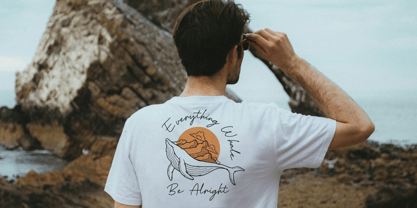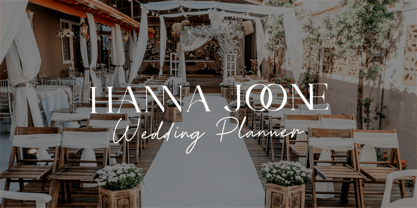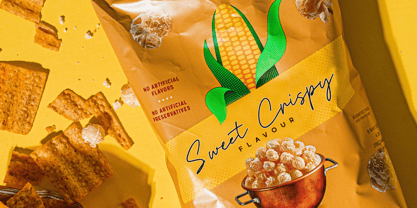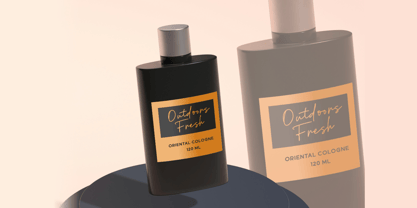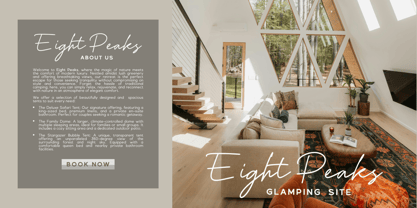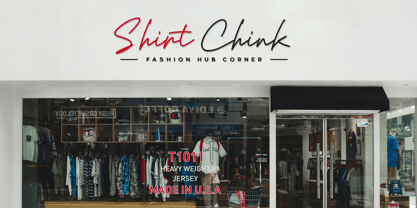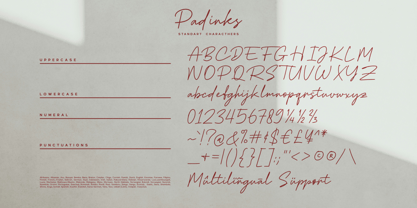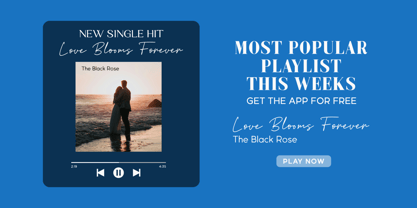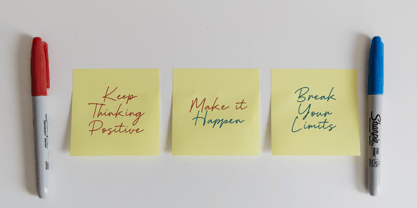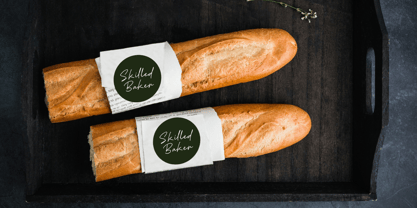
Padinks
The Padinks Font Family was designed by Java Pep and published by Java Pep. Padinks contains 2 styles and family package options. More about this family
Introducing the Padinks font, a monoline typeface. This font is made in a handwritten style, which is equipped with open type features such as alternate letters, ligatures, and contextual alternatives, so that the handwritten style stands out more. Padinks font is perfect for branding, logos, quotes, fashion, invitations, advertising, publishing, food and beverage, etc.